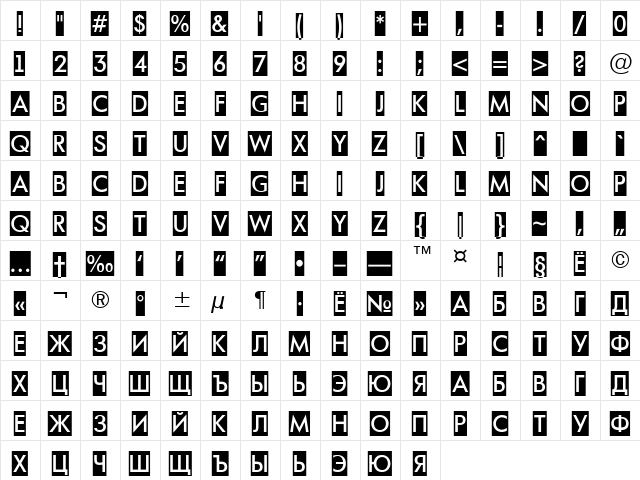
a_FuturaOrtoTitulCm Regular
Design Context for a_FuturaOrtoTitulCm Typeface
a_FuturaOrtoTitulCm channels digital-age aesthetics through its sharp, structured letterforms — ideal for brands that want to signal innovation.
Pro Tip: Try a_FuturaOrtoTitulCm with generous letter-spacing in UI labels and navigation — the geometric forms benefit from room to breathe.